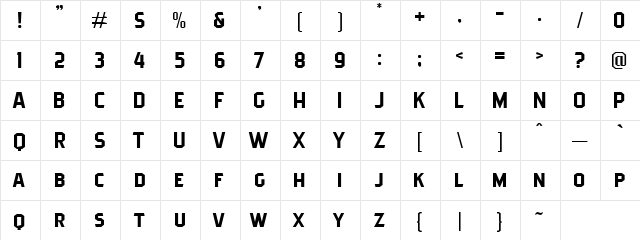
Pittsbrook Sans Regular
Design Context for Pittsbrook Sans Typeface
Pittsbrook Sans is a composed and adaptable typeface that performs quietly and consistently across a wide range of design contexts.